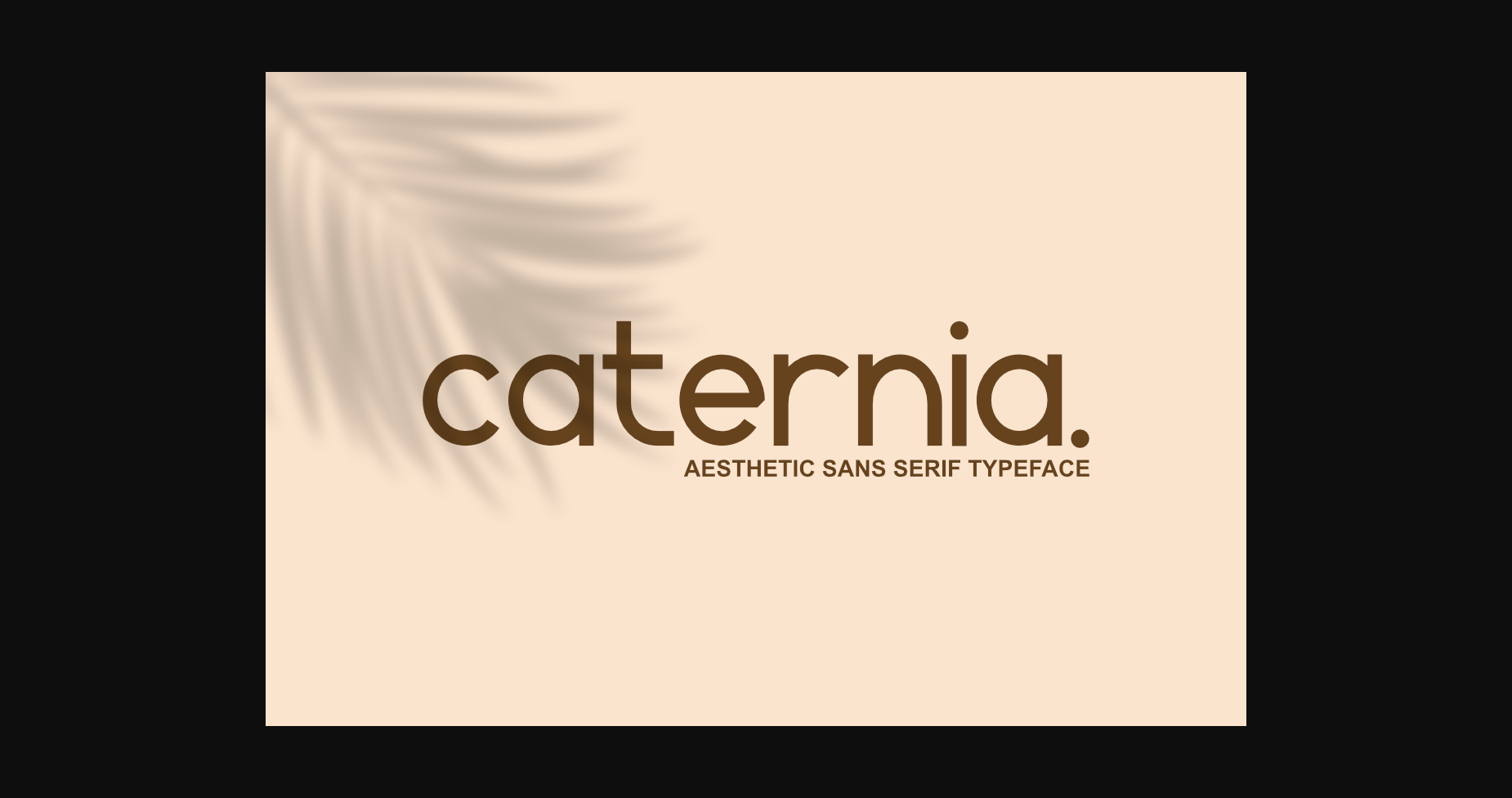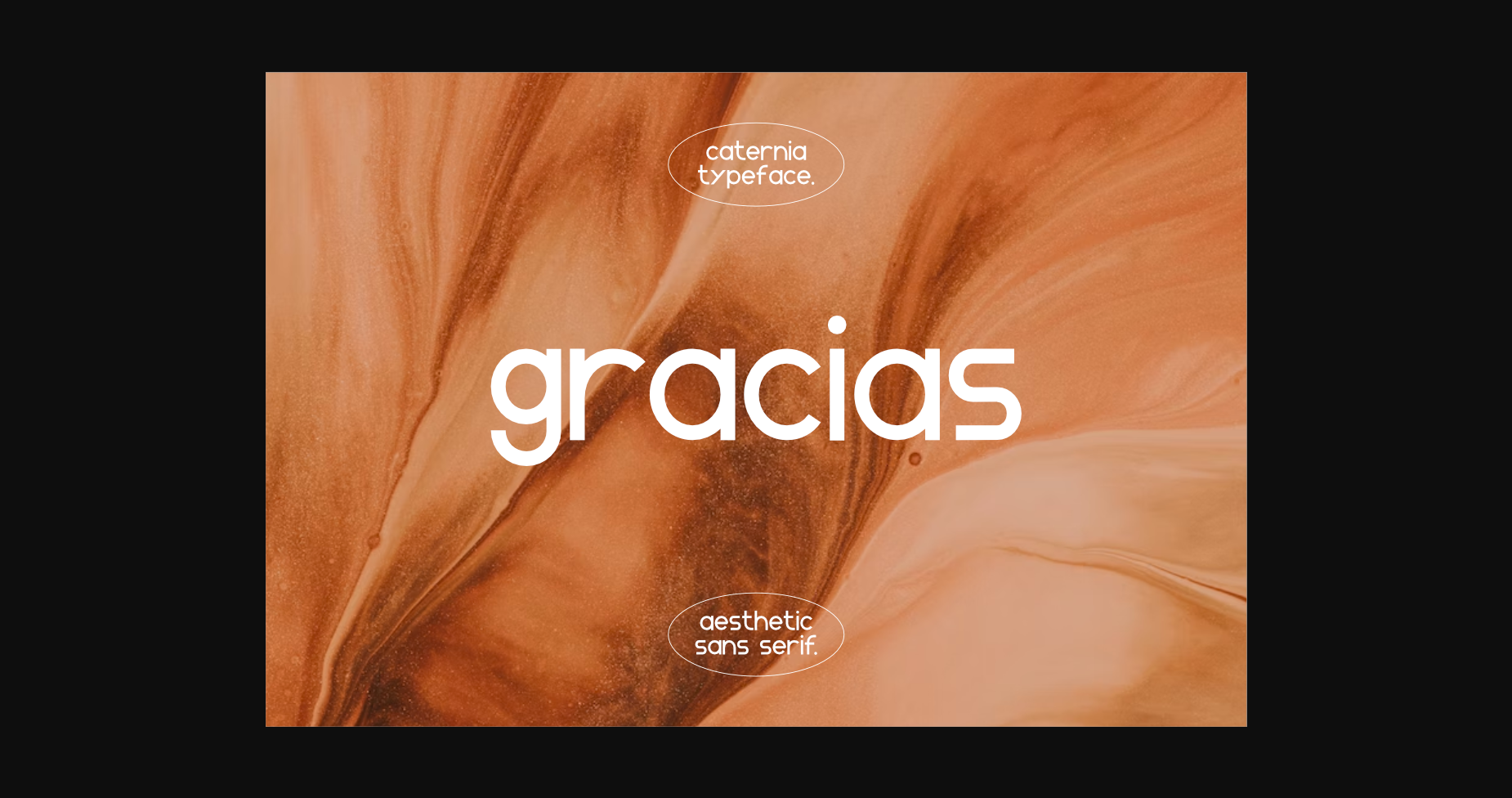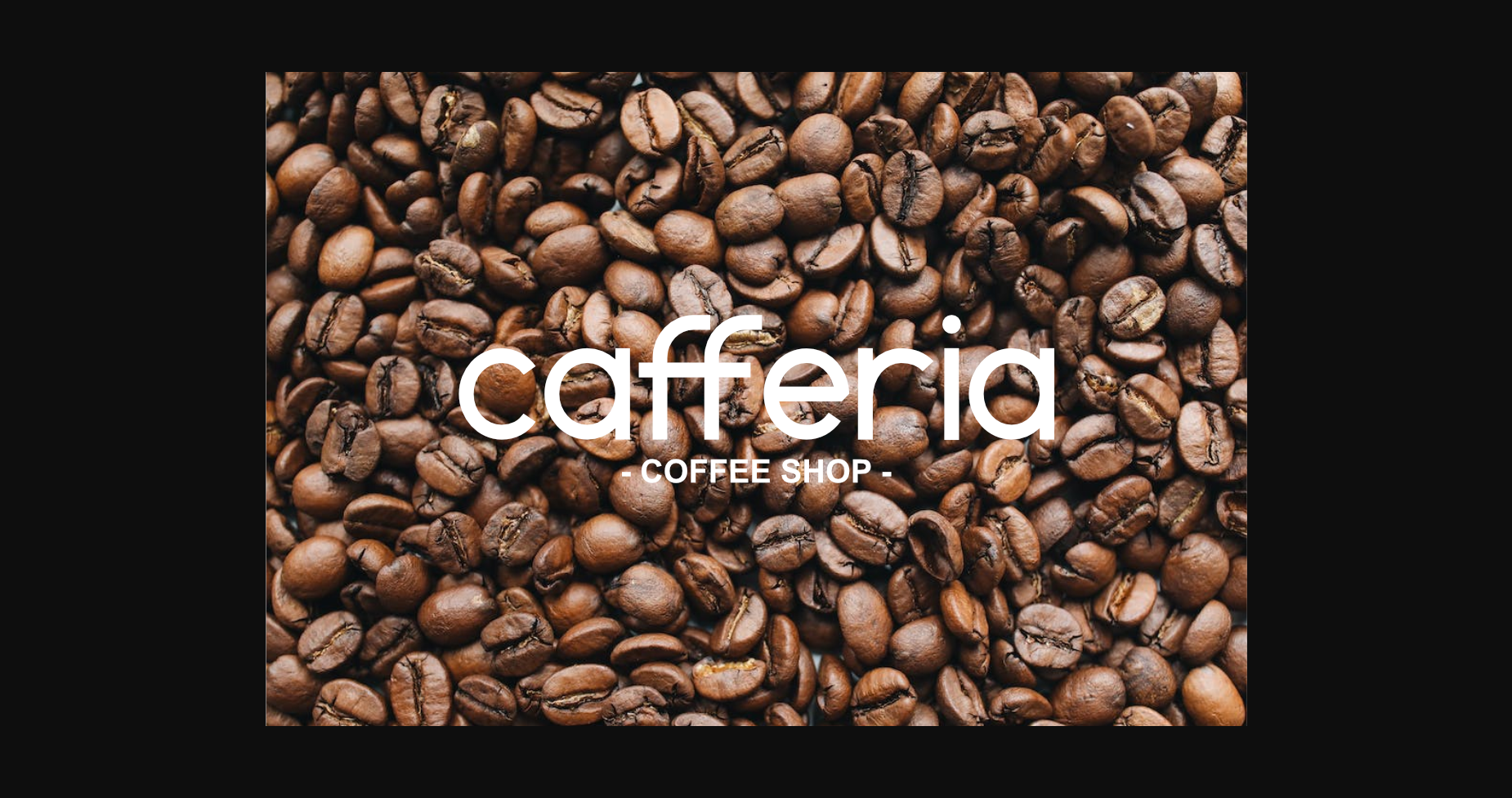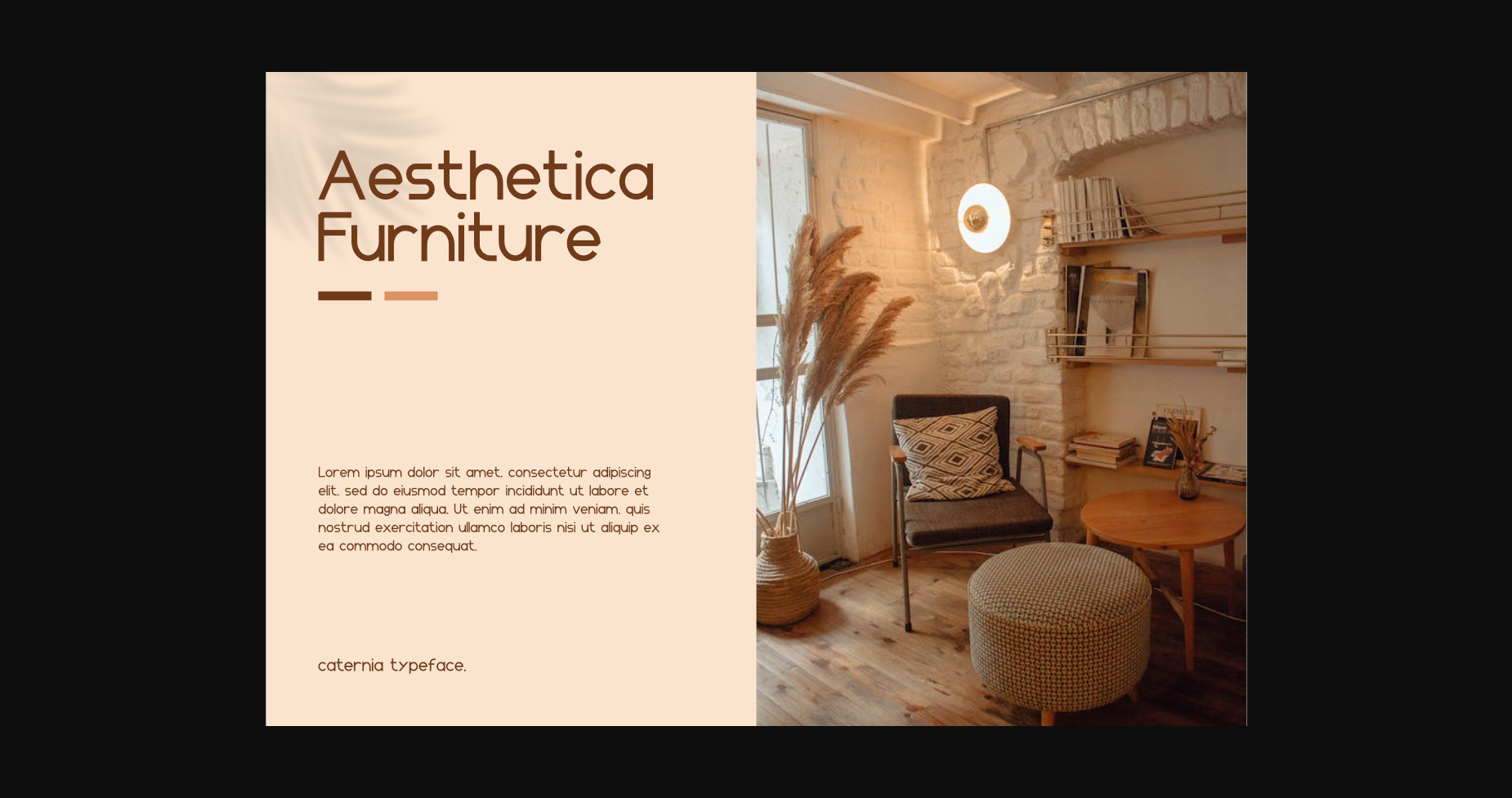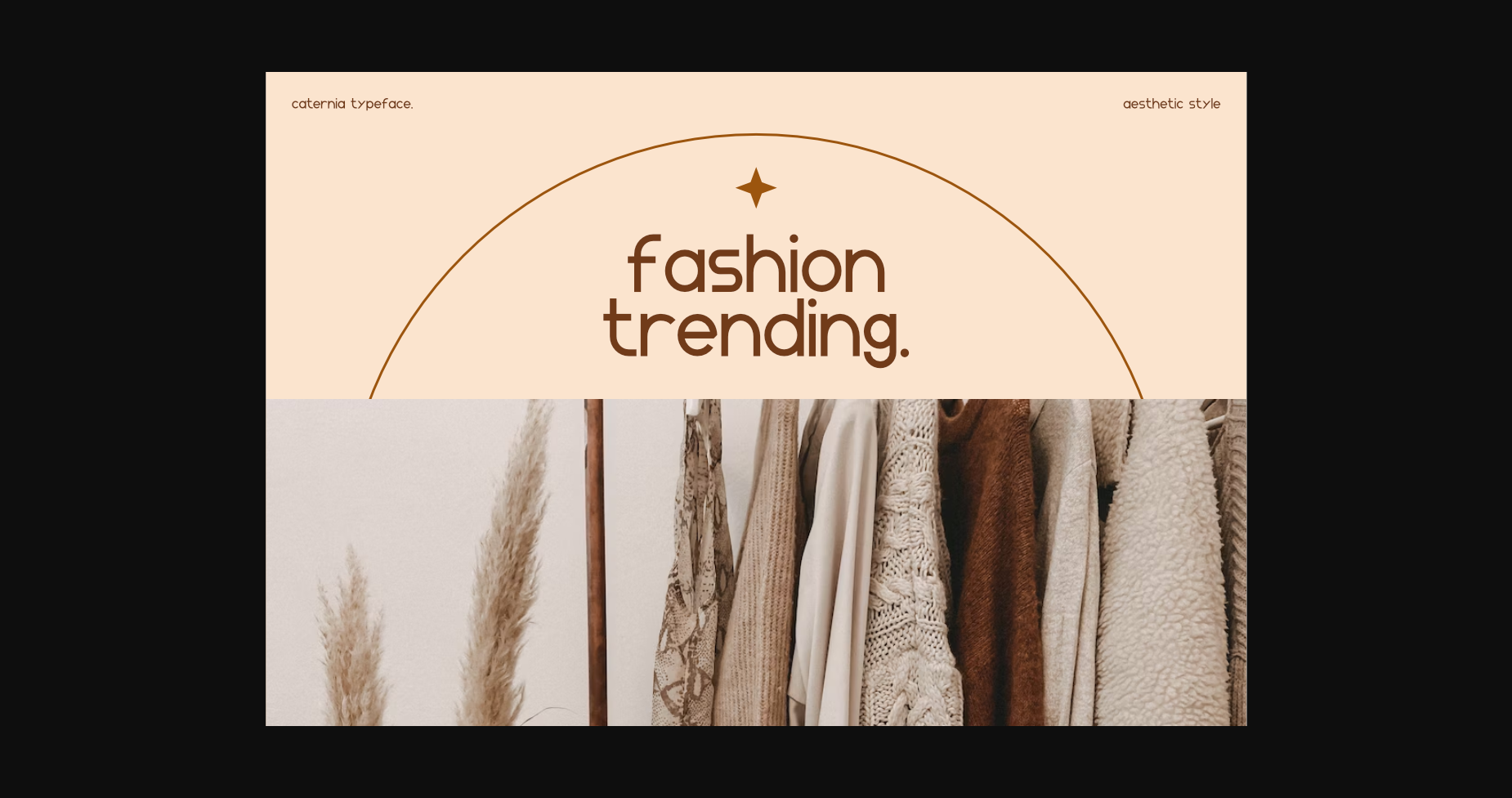
About Caternia Font
Caterina is a modern style based on a minimalist monoline shape that is touched in a modern and elegant style. This font is perfect for a variety of creative needs such as printing, books, titles, headlines, photography, embellishments, branding, logos, beauty, cosmetic products, and many more.